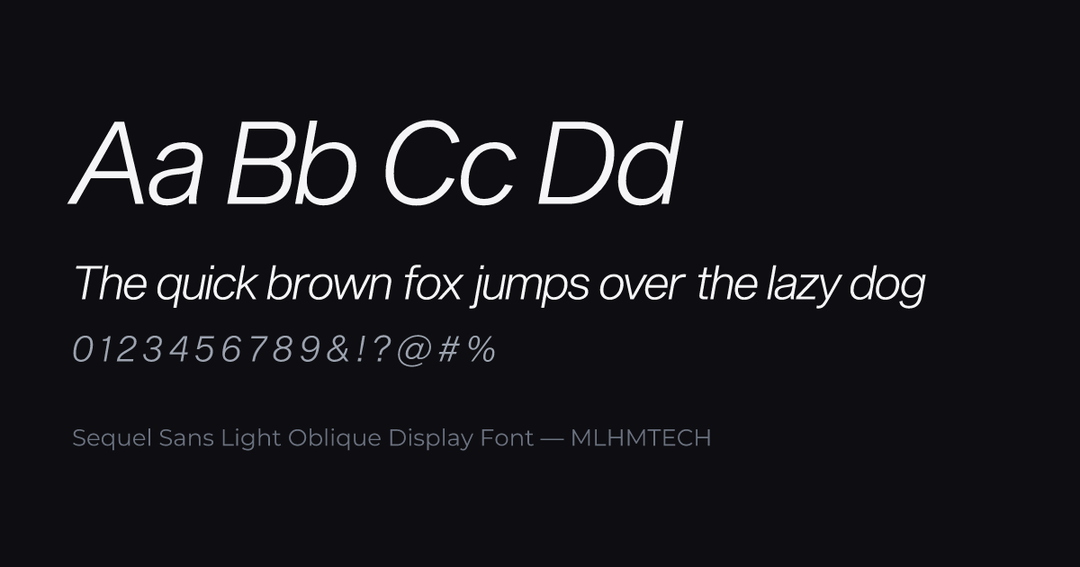
Sequel Sans Light Oblique Display Font
Sequel Sans Light Oblique is a refined sans-serif font with a subtle slant, ideal for modern branding and editorial projects.
Sequel Sans Light Oblique Display is a contemporary sans-serif typeface that combines geometric precision with a gentle oblique angle. Its light weight and clean lines make it perfect for headlines, logos, and any design that requires a sophisticated, airy feel.
This font is part of the Sequel Sans family, known for its versatility and modern aesthetic. The oblique style adds a dynamic touch while maintaining readability, making it suitable for both digital and print applications.
Whether you're working on a brand identity, website, or poster, this font will elevate your design with its elegant simplicity. It supports multiple languages and includes standard punctuation and numerals.